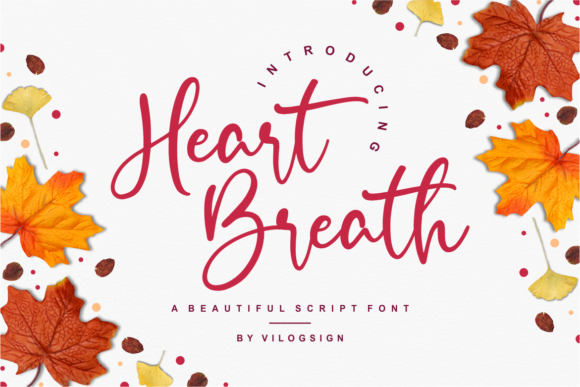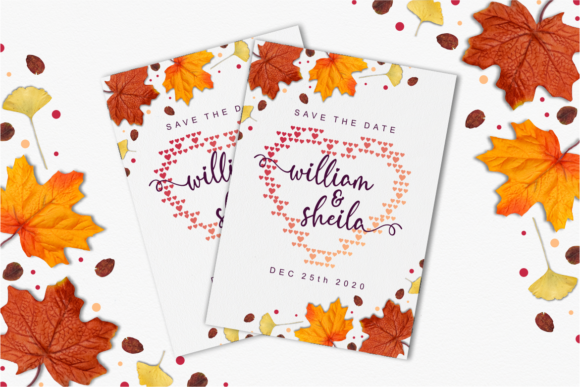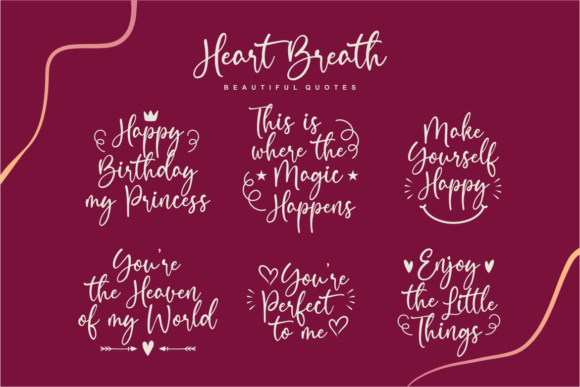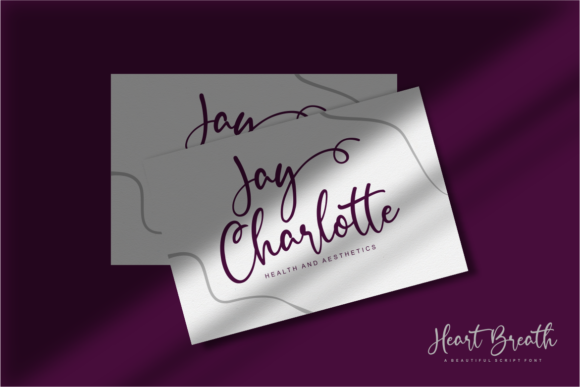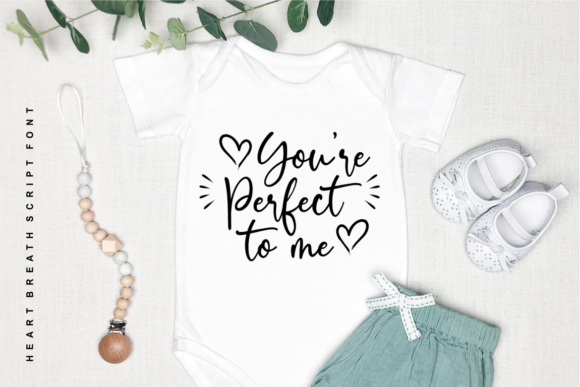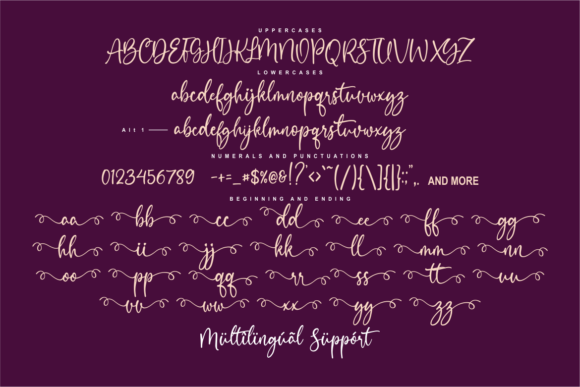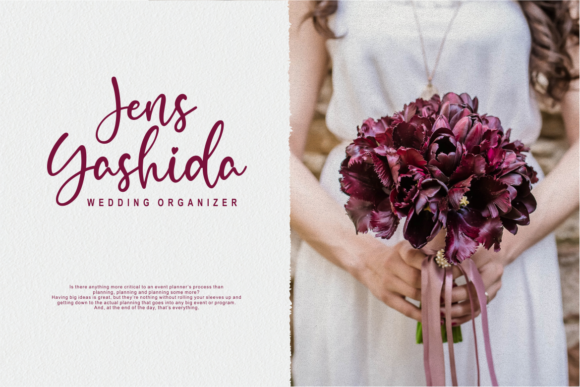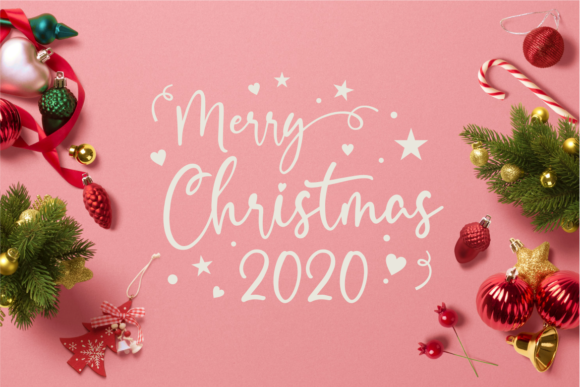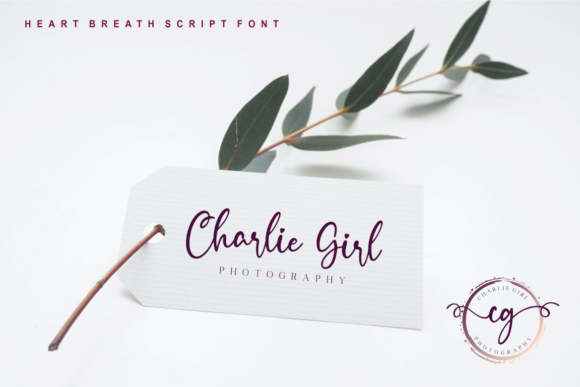
Heart Breath Font
About Heart Breath Font
Heart Breath is a beautiful and cursive handwritten font. Joyful and warm, this font will be the ideal choice for both festive and casual designs.